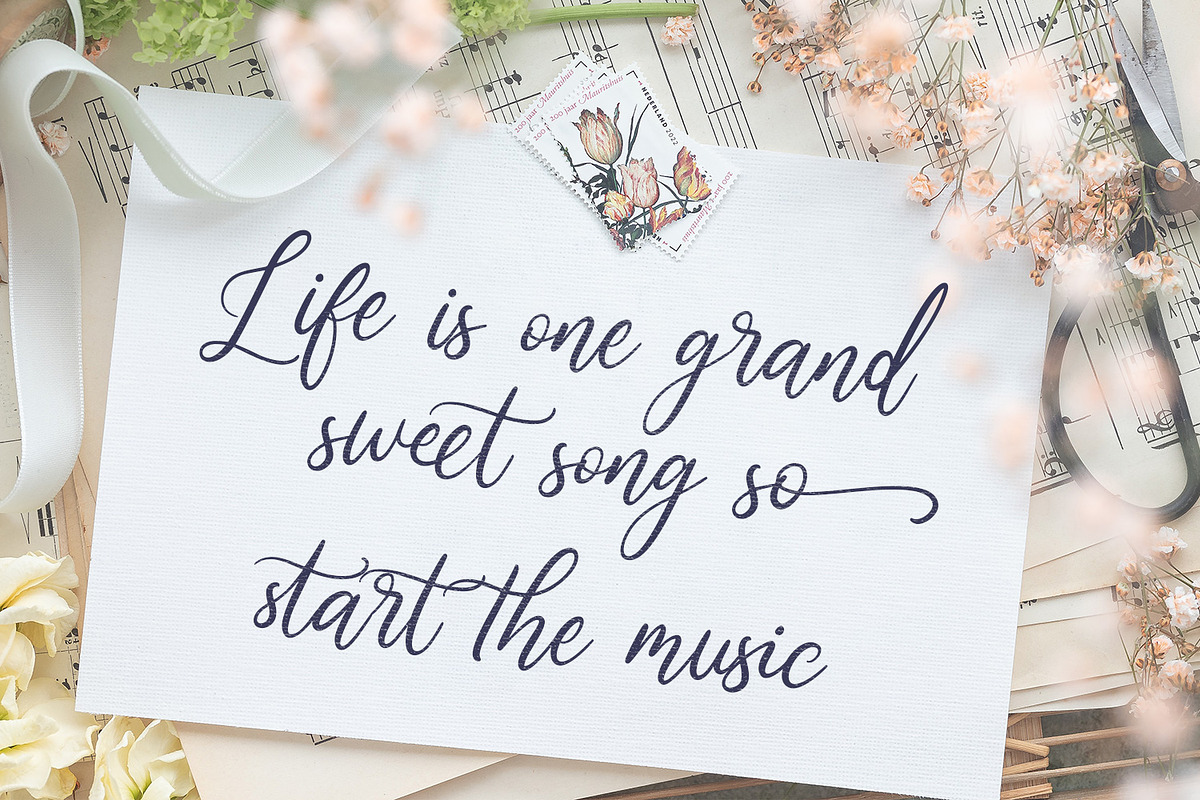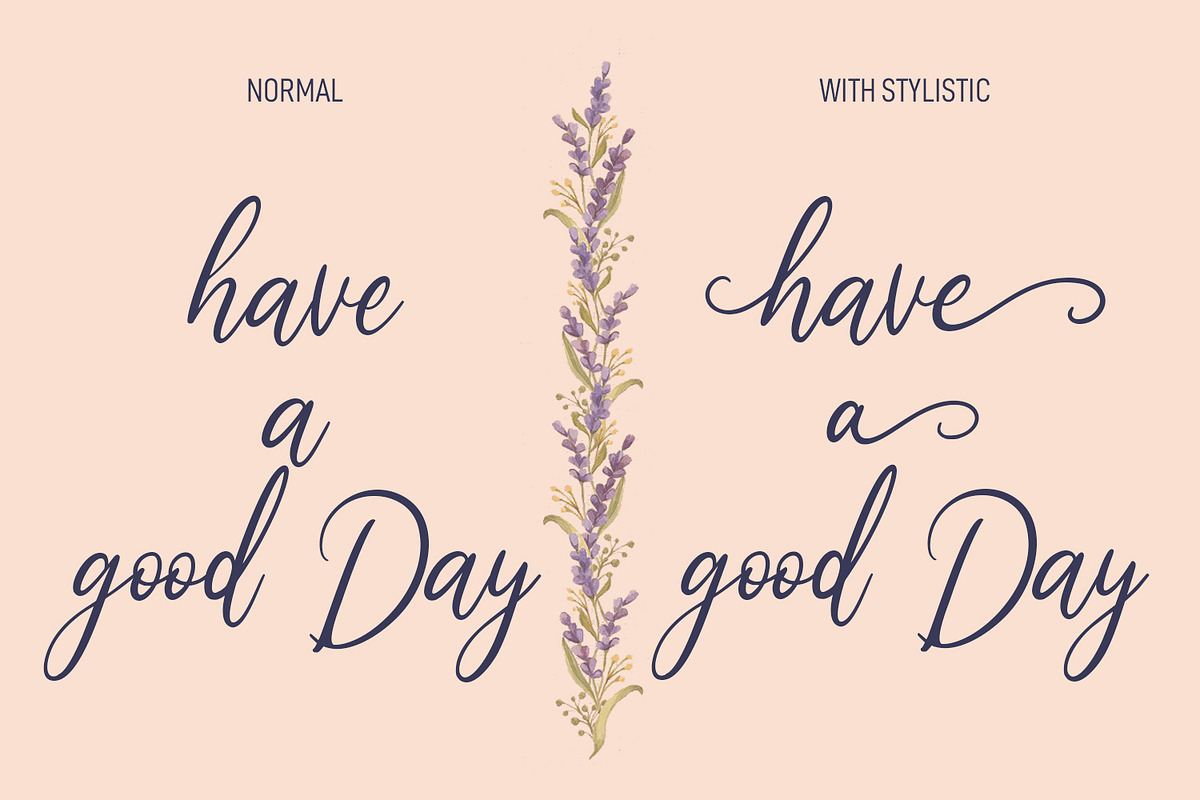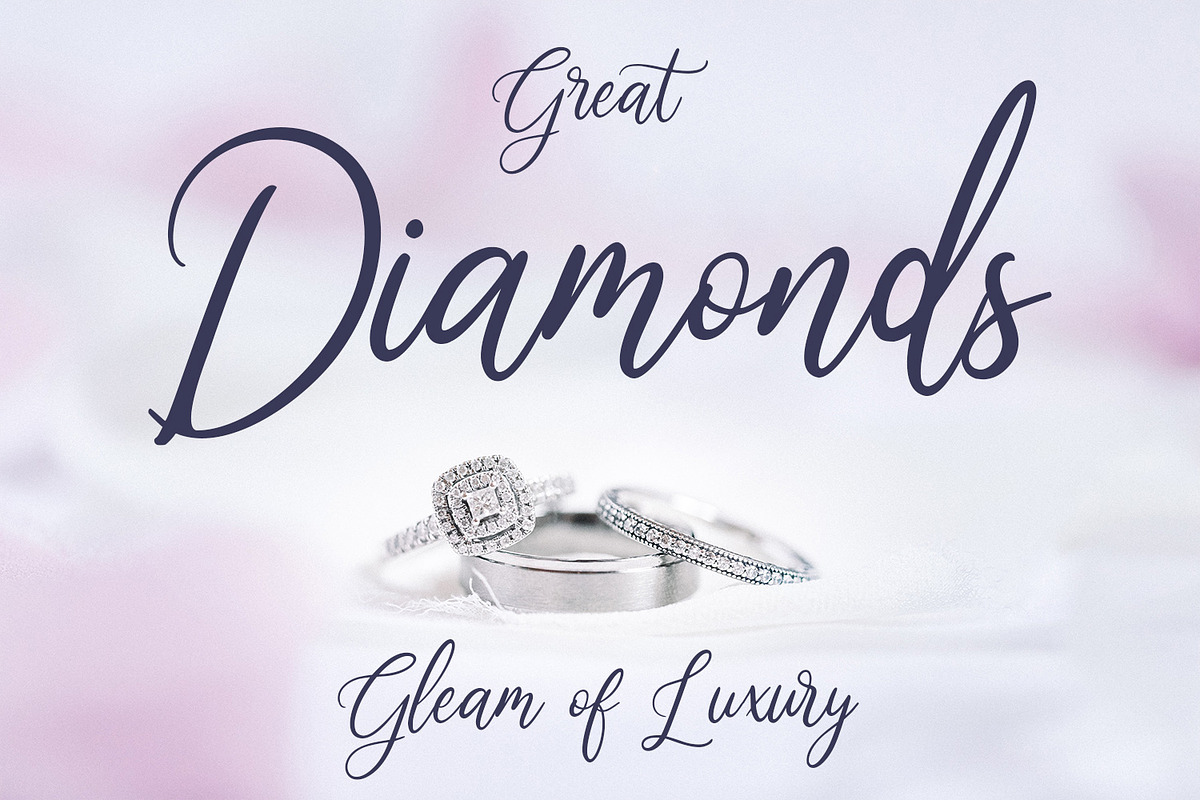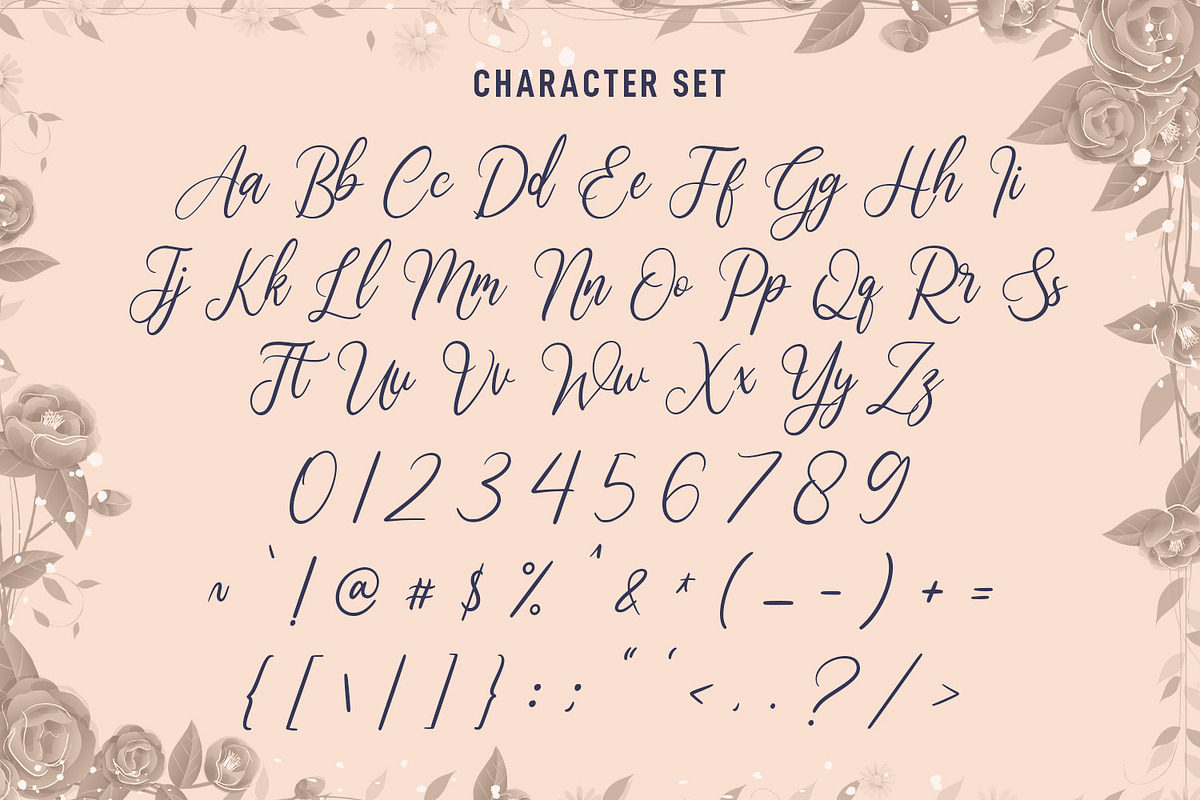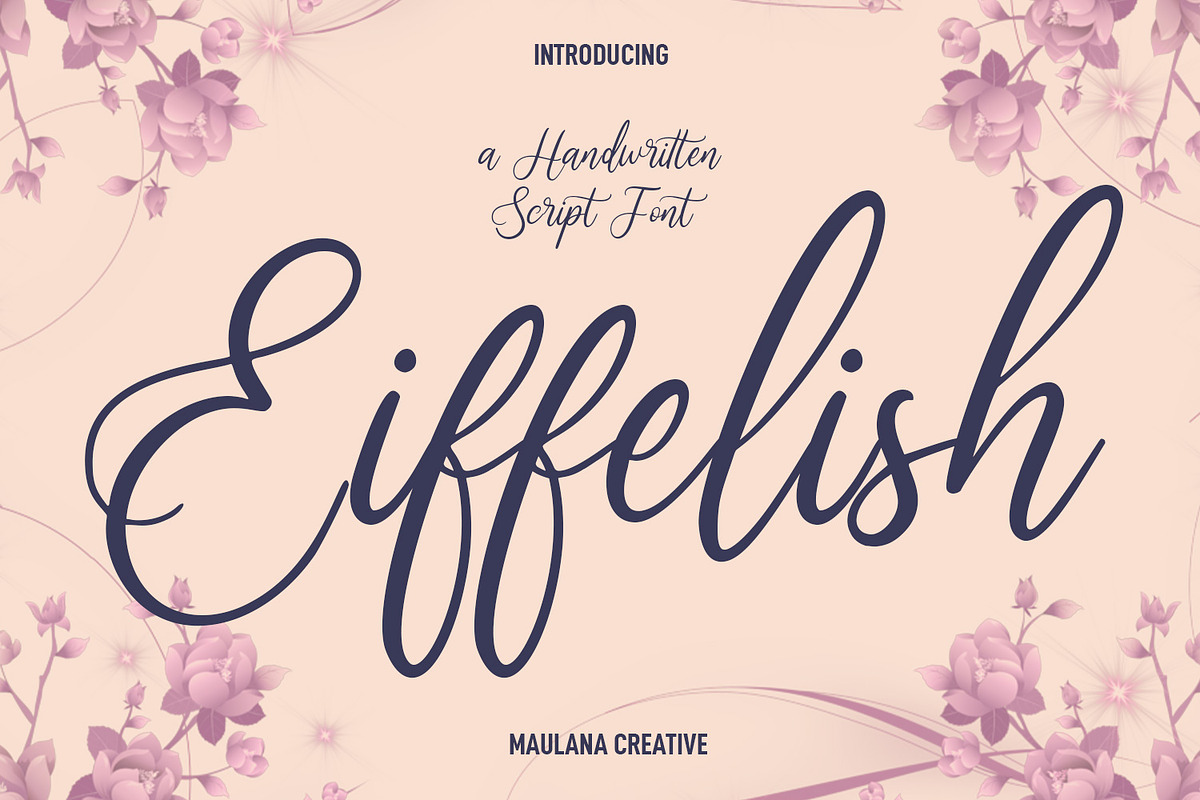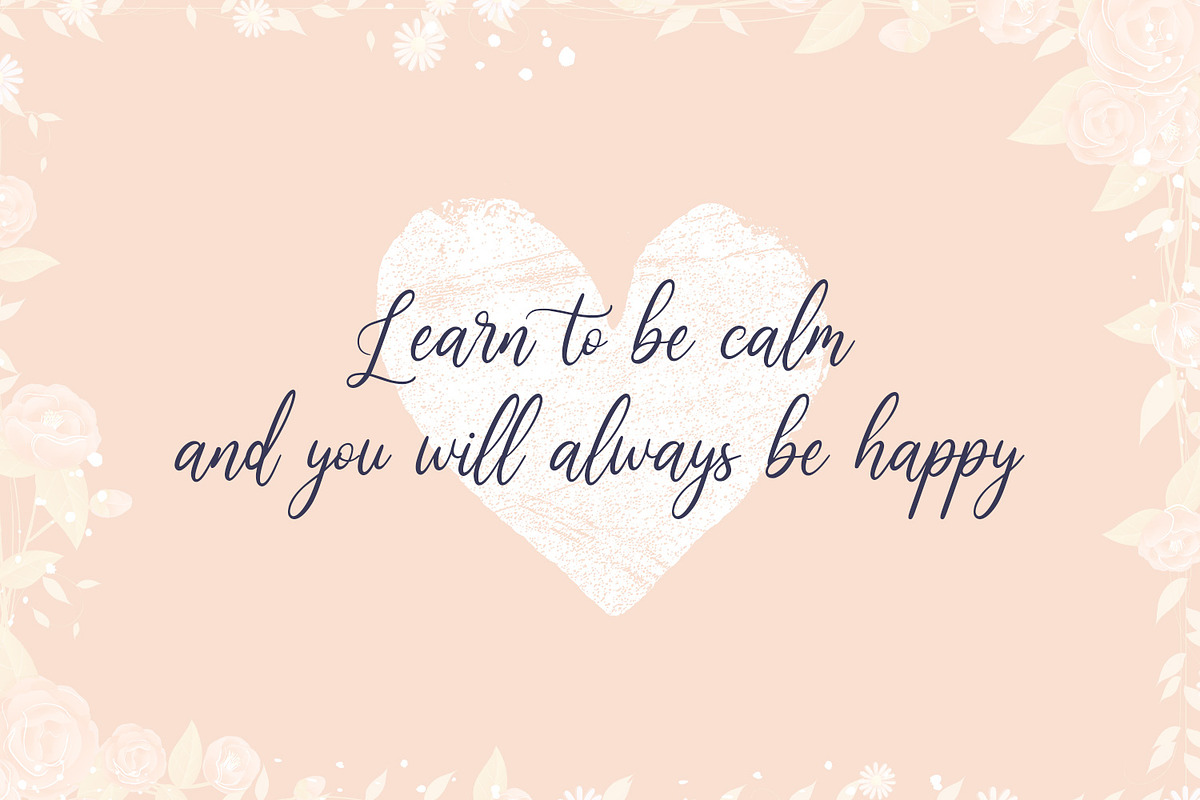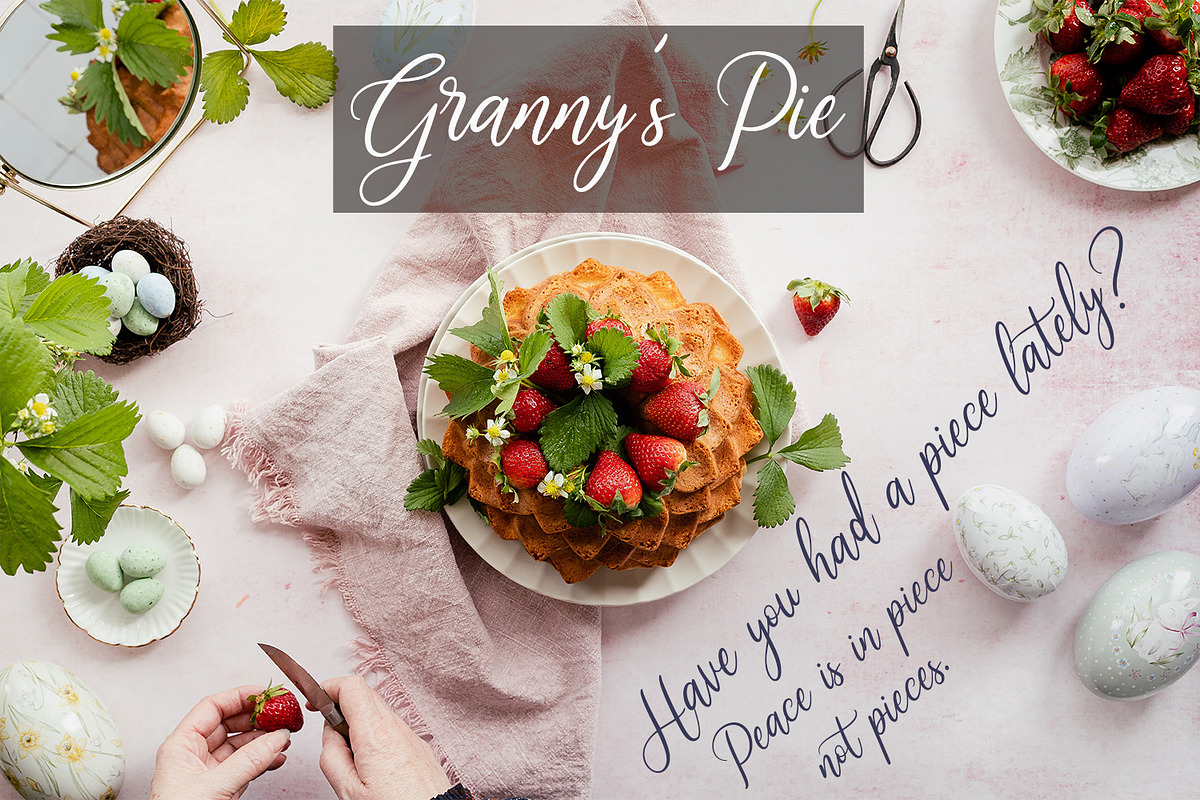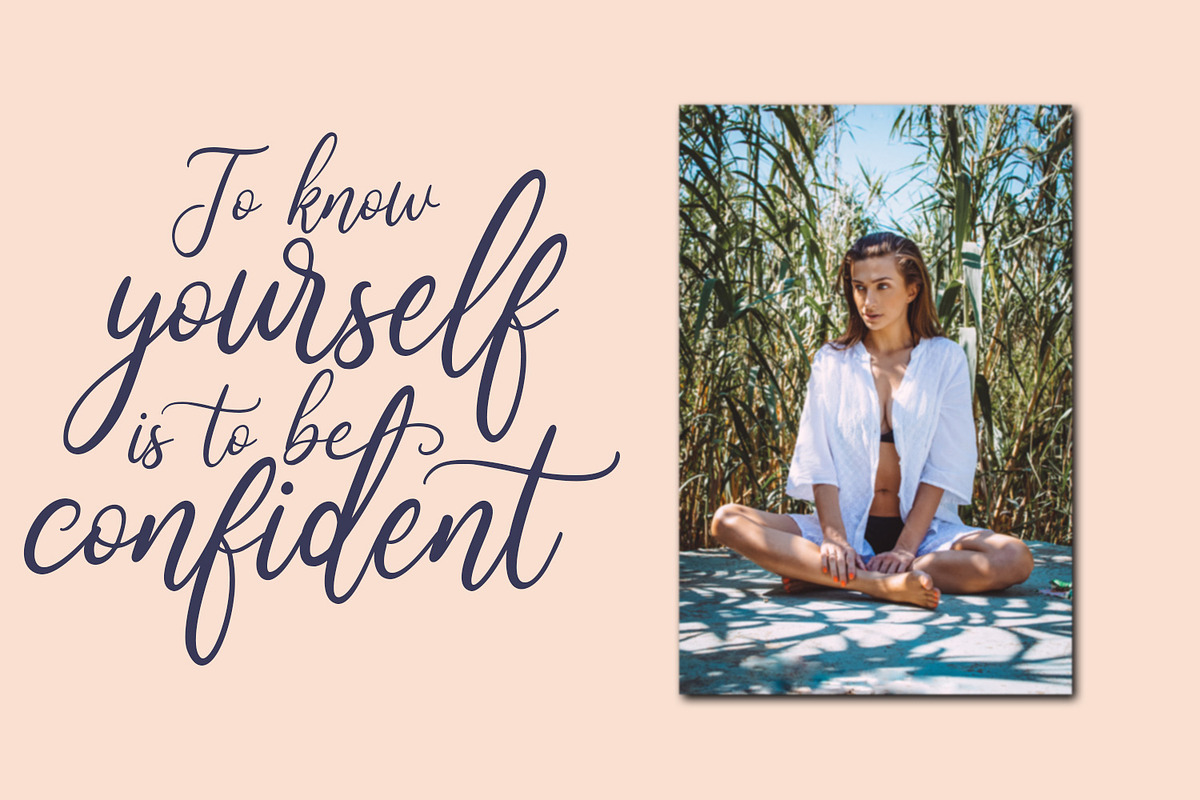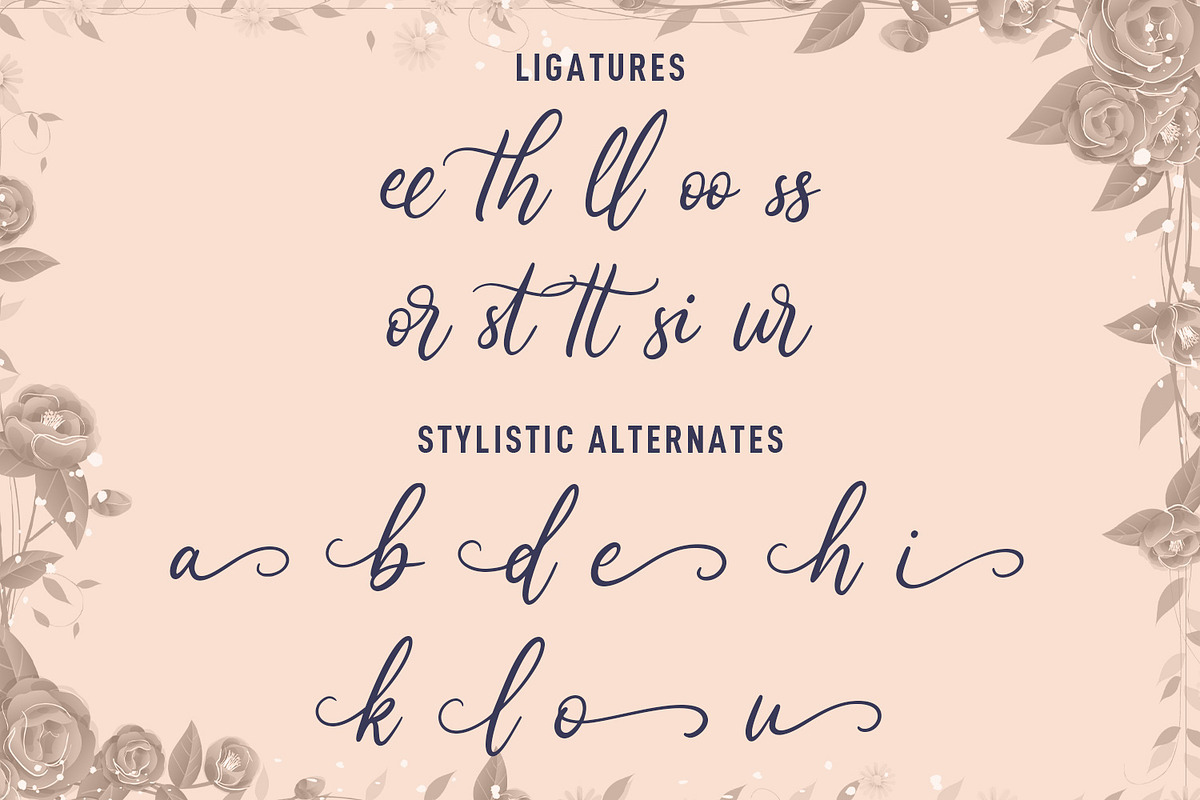
Eiffelish Script Font
Eiffelish is a beauty script font. With light contrast stroke, fun character with a bit of ligatures and alternates. To give you an extra creative work. Eiffelish font support multilingual more than 100+ language. This font is good for logo design, Social media, Movie Titles, Books Titles, a short text even a long text letter and good for your secondary text font with sans or serif. Make a stunning work with Eiffelish font. What you get: – Eiffelish (TTF) – Eiffelish (OTF) Cheers, Maulana Creative